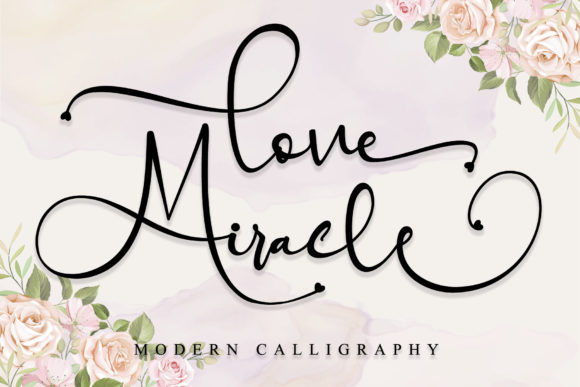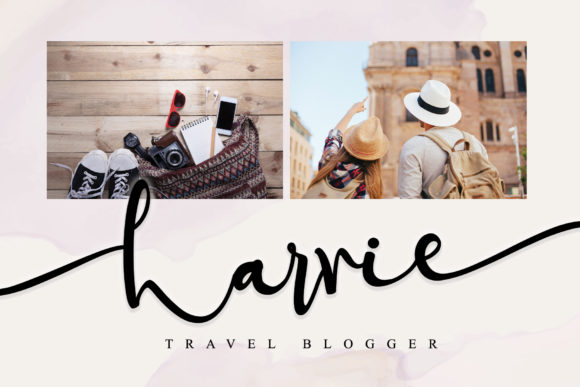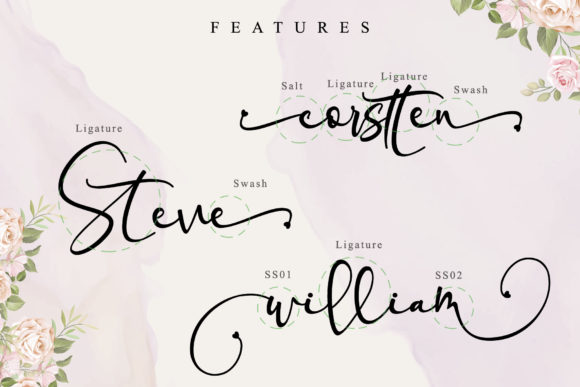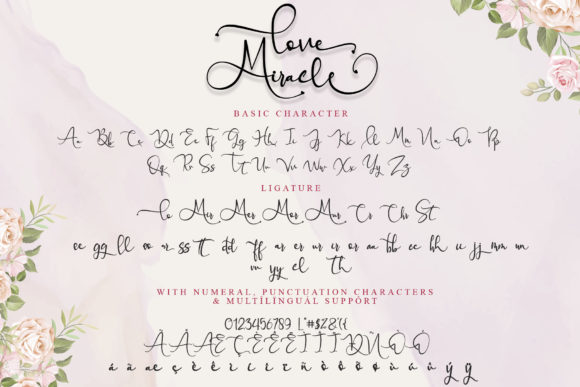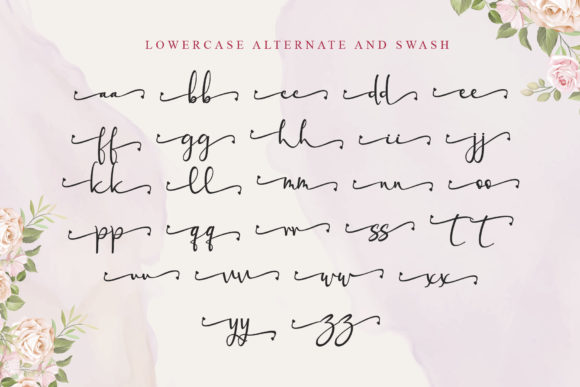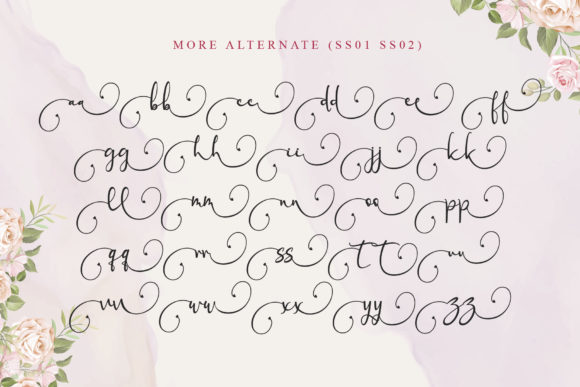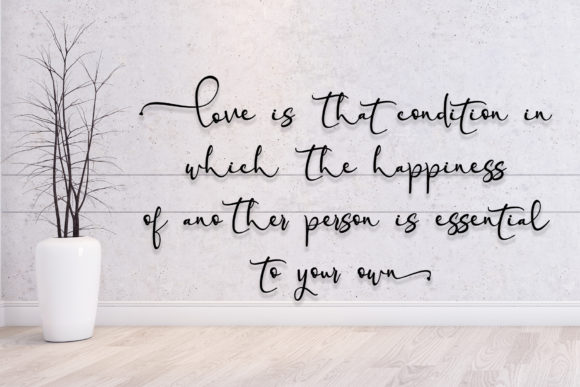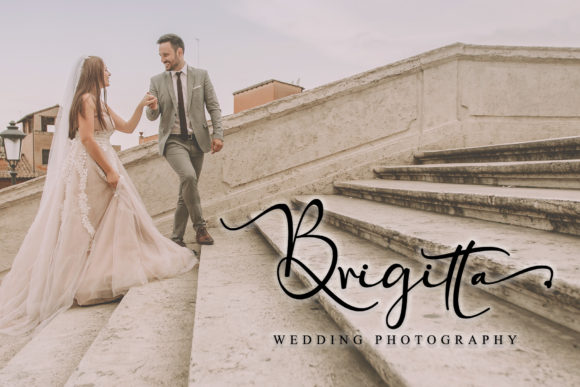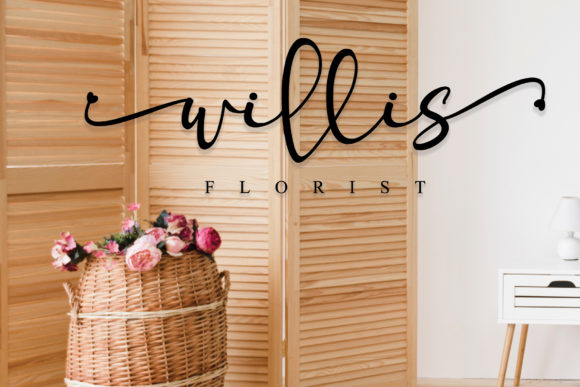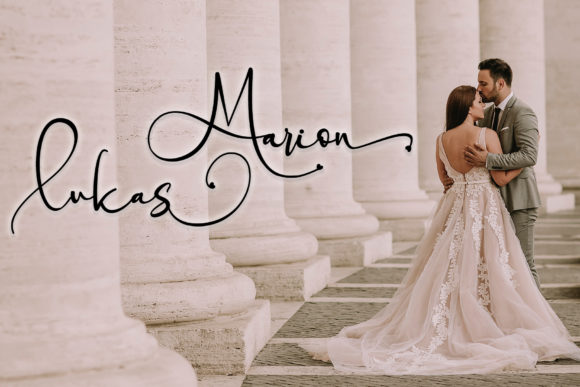
Love Miracle Font
About Love Miracle Font
Love Miracle is a beautiful light handwritten font. It features an incredibly classic style, while still keeping a friendly feel. Love Miracle is the perfect font for making original and outstanding designs. This font is PUA encoded which means you can access all of the amazing glyphs and swashes with ease! It also features a wealth of special features including alternate glyphs and ligatures.